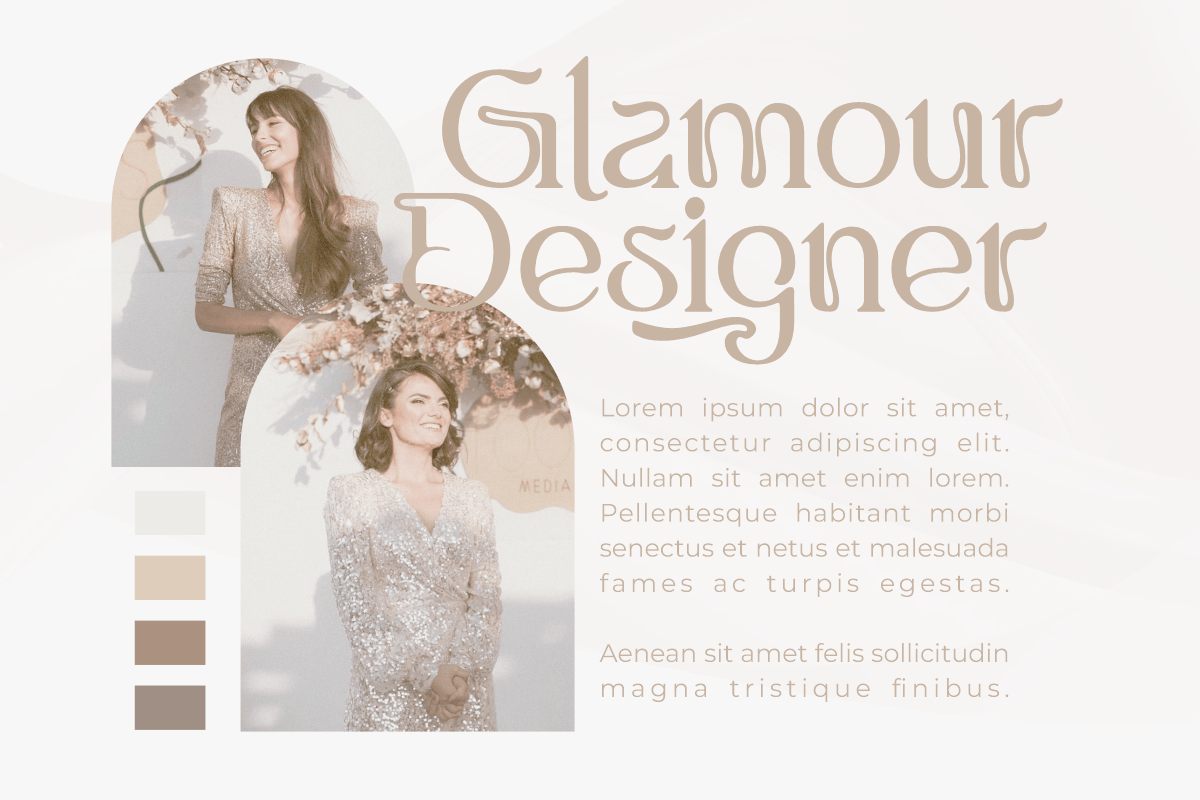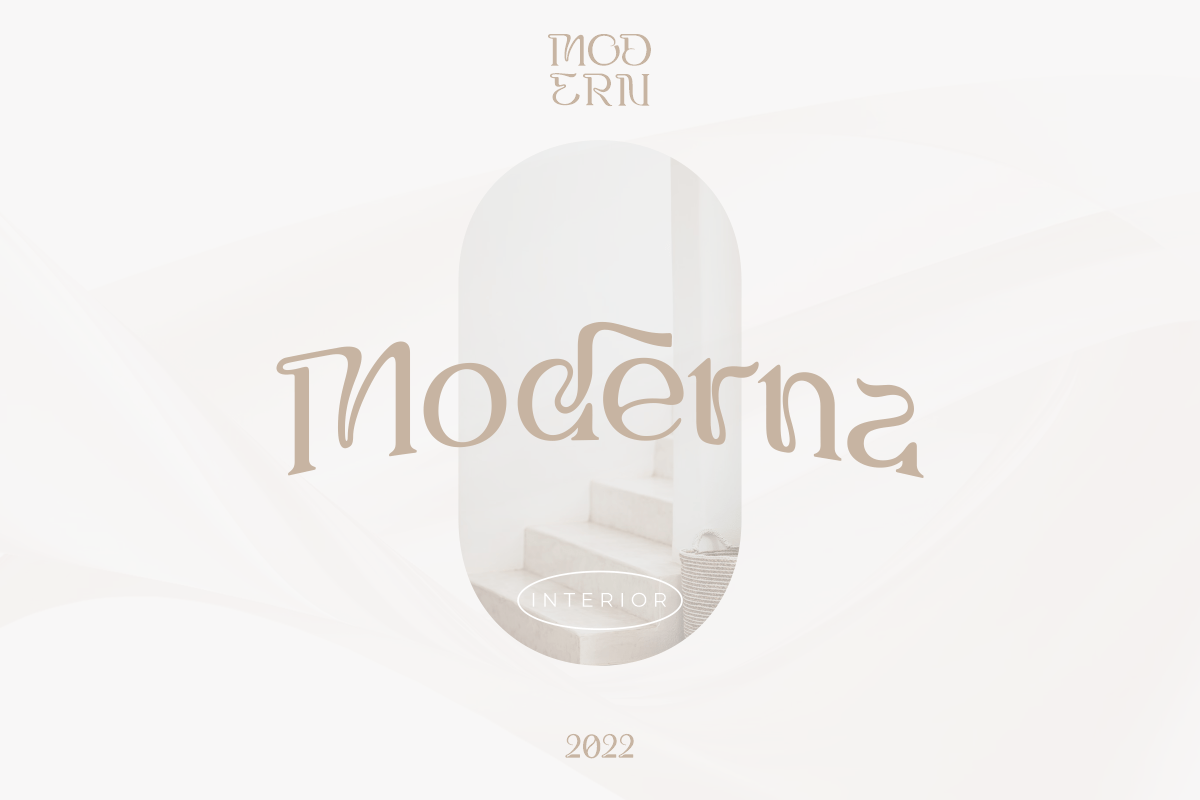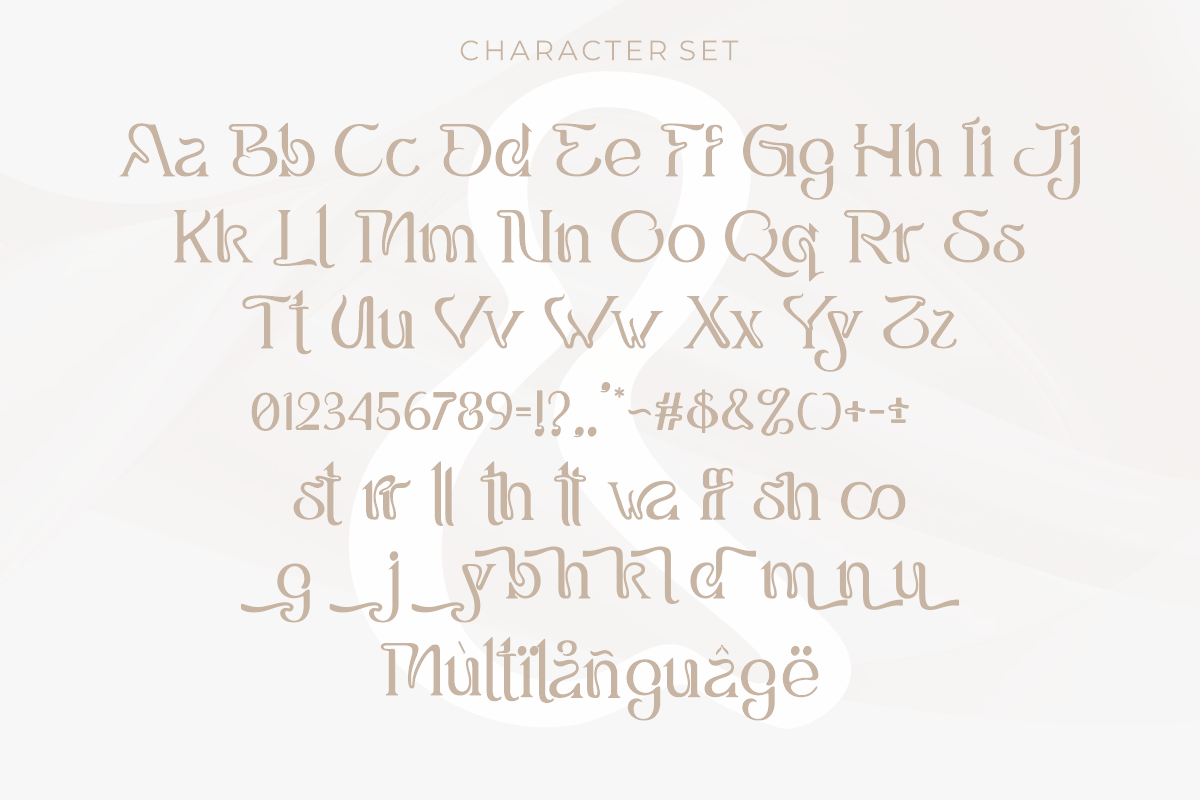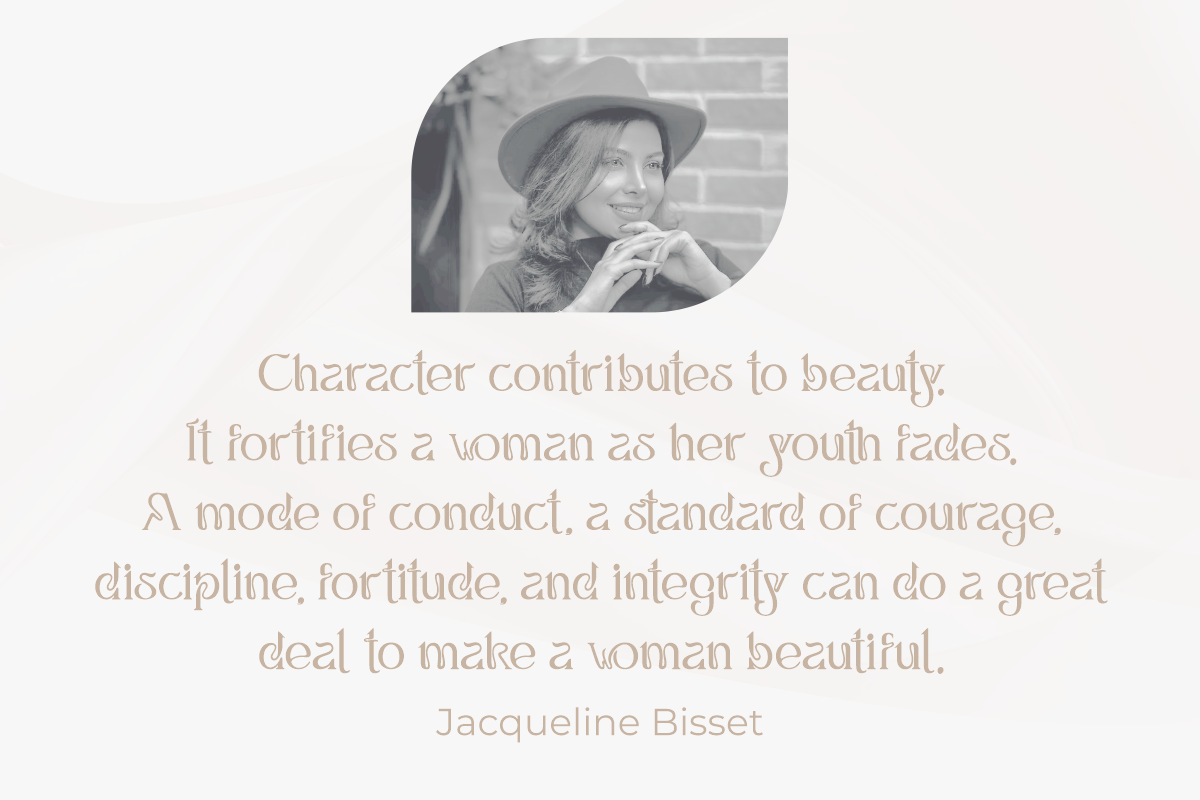
Bhalleux Elegant Serif Font
Bhalleux Elegant Serif Font is an elegant modern serif font. Letters with a combination of curved shapes that look unique and not boring, have a variety of ligatures and swashes. A serif font with a unique, elegant curve.
Bhalleux is perfect for branding projects, logos, wedding designs, social media posts, advertisements, product packaging, product designs, labels, photography, watermarks, invitations, stationery and any project that requires a font with elegant serif